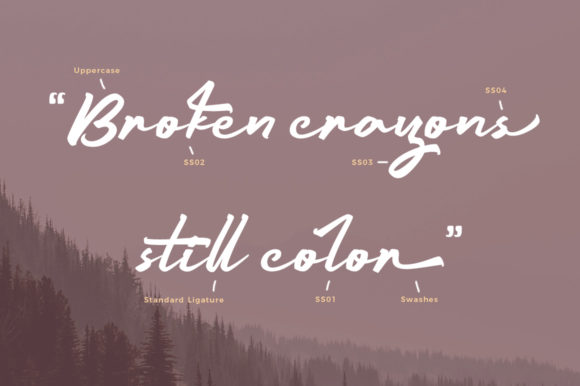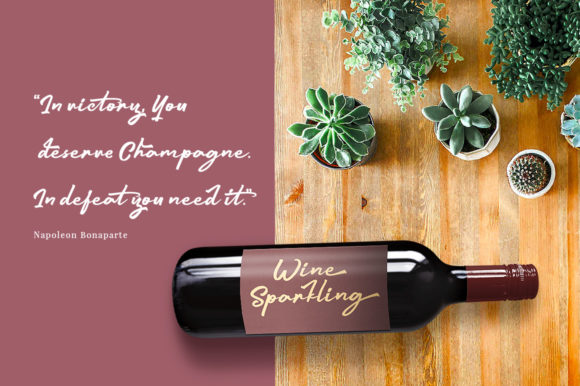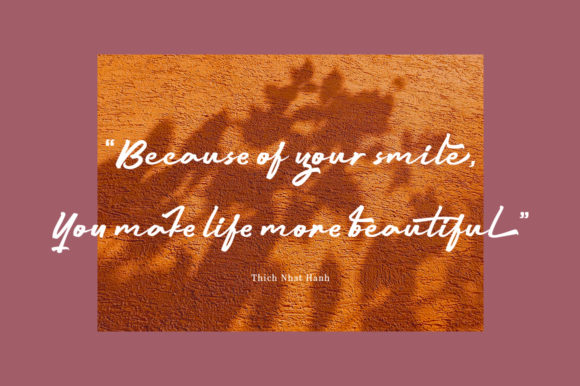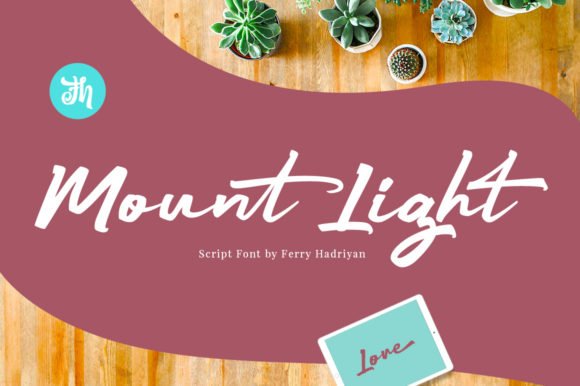
Introduction to Mount Light Font
Mount Light is an elegant and flowing handwritten font.
It has beautiful and well balanced characters and as a result, it matches a wide pool of designs Add it to your most creative ideas and notice how it makes them come alive.
Key Features of Mount Light Font